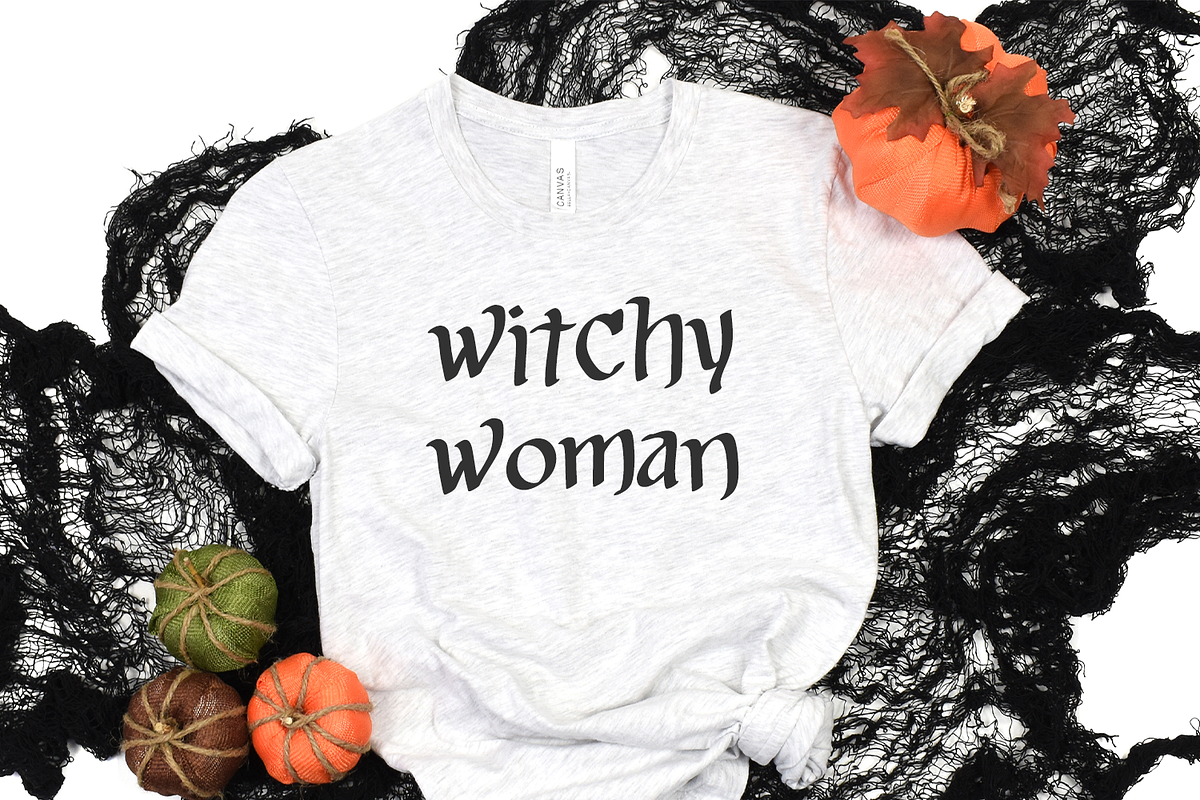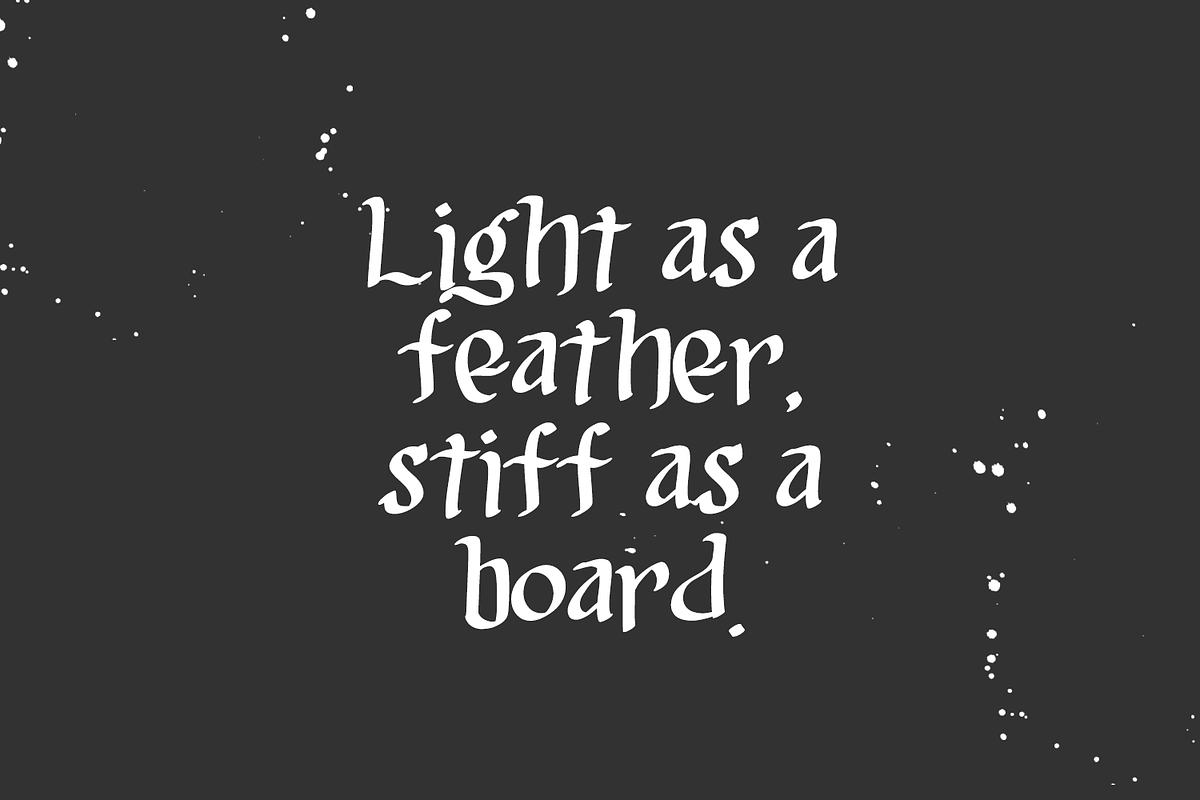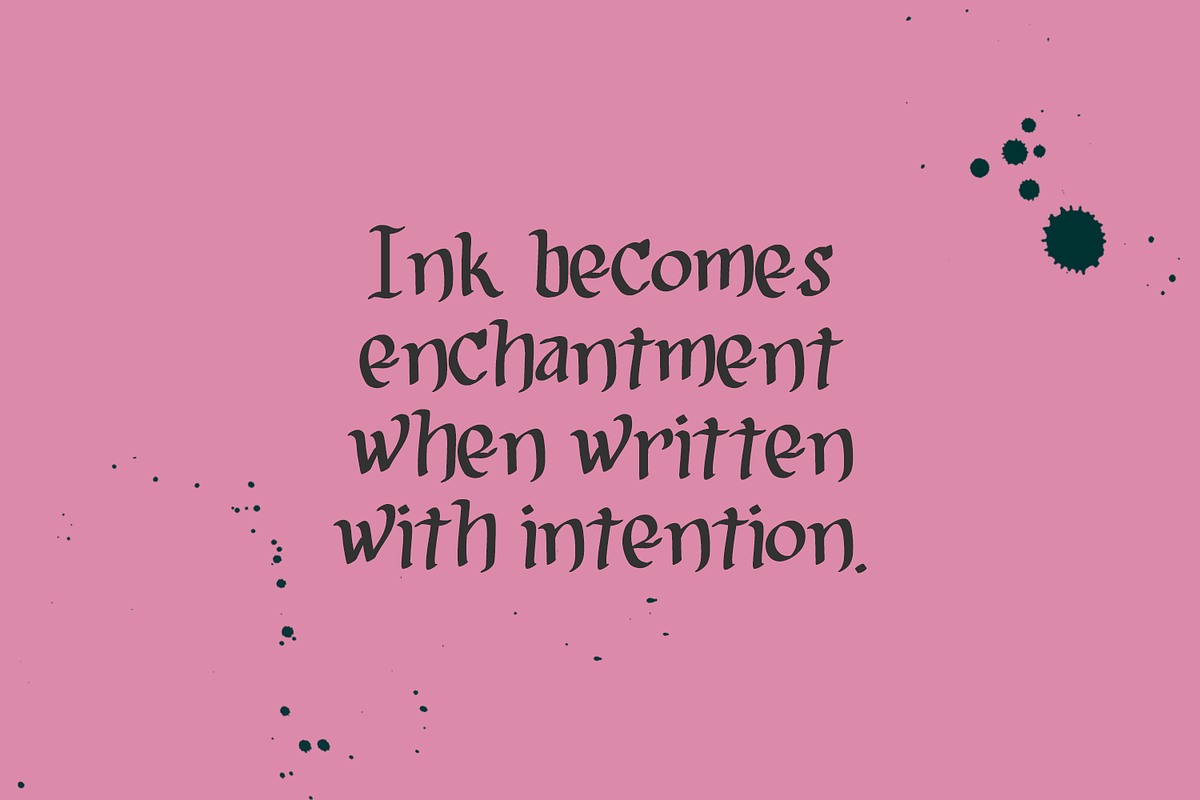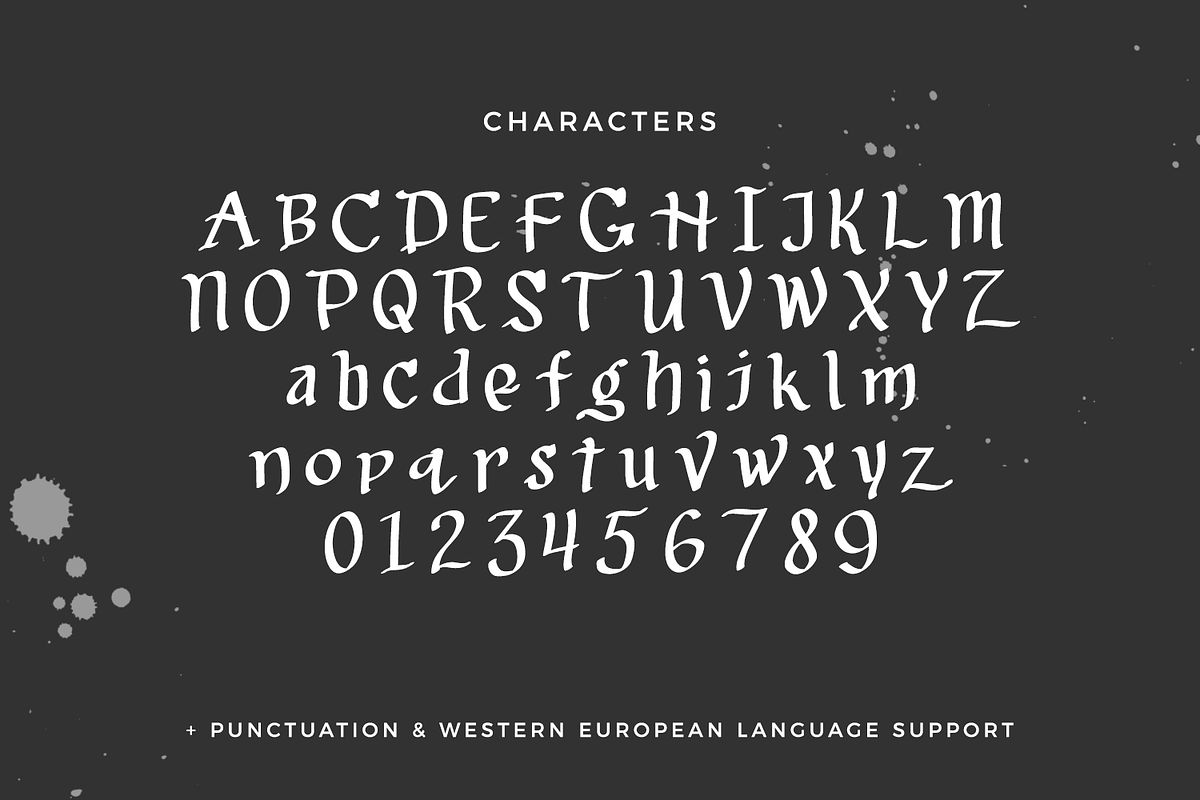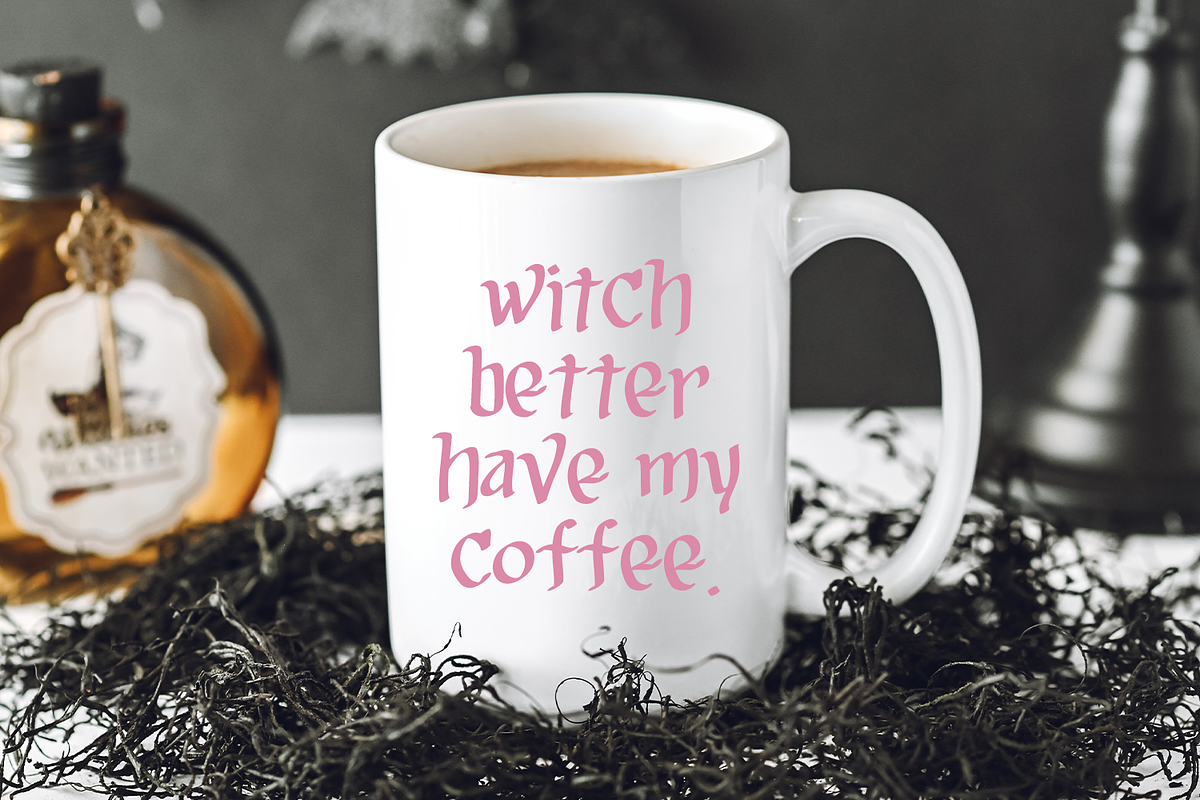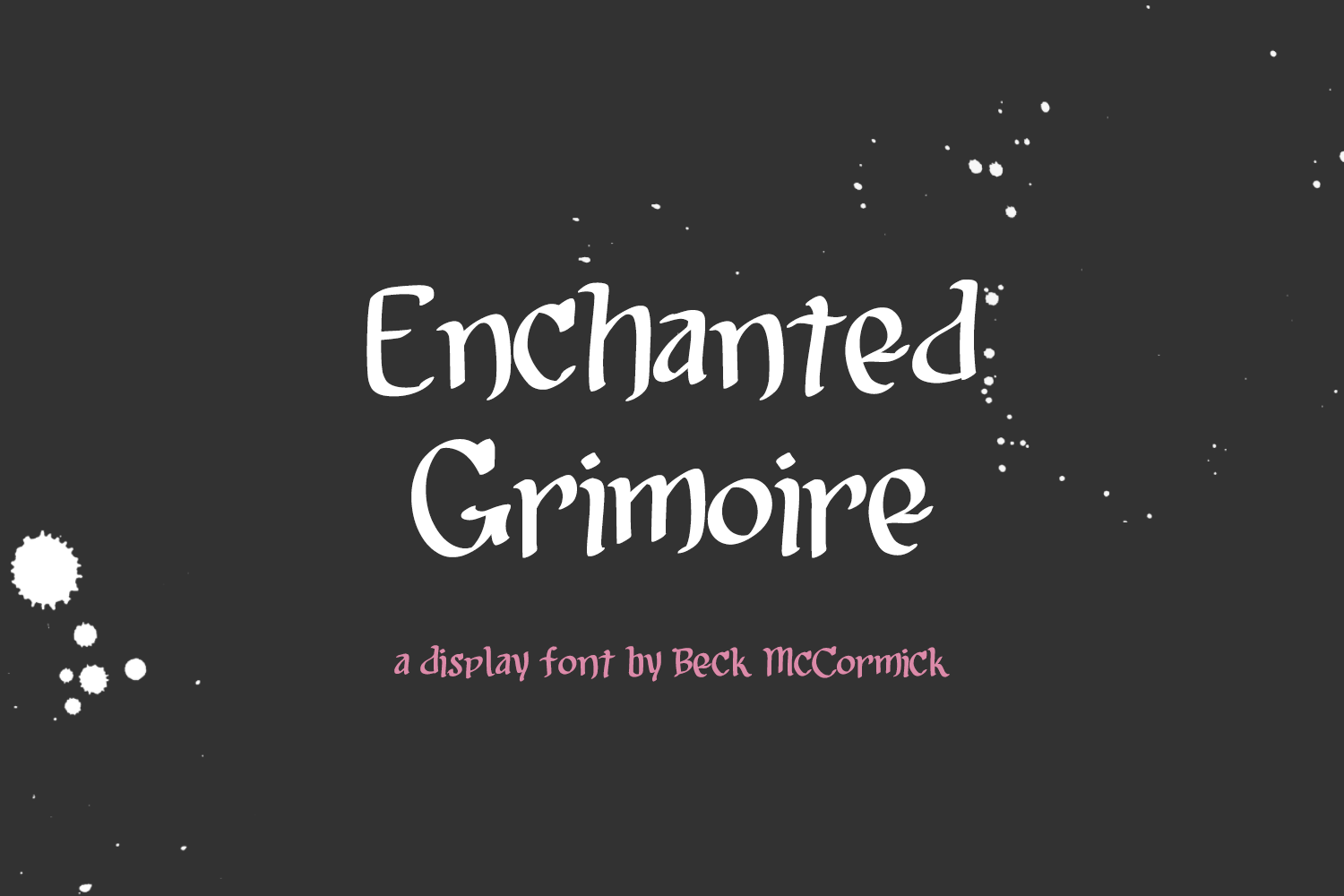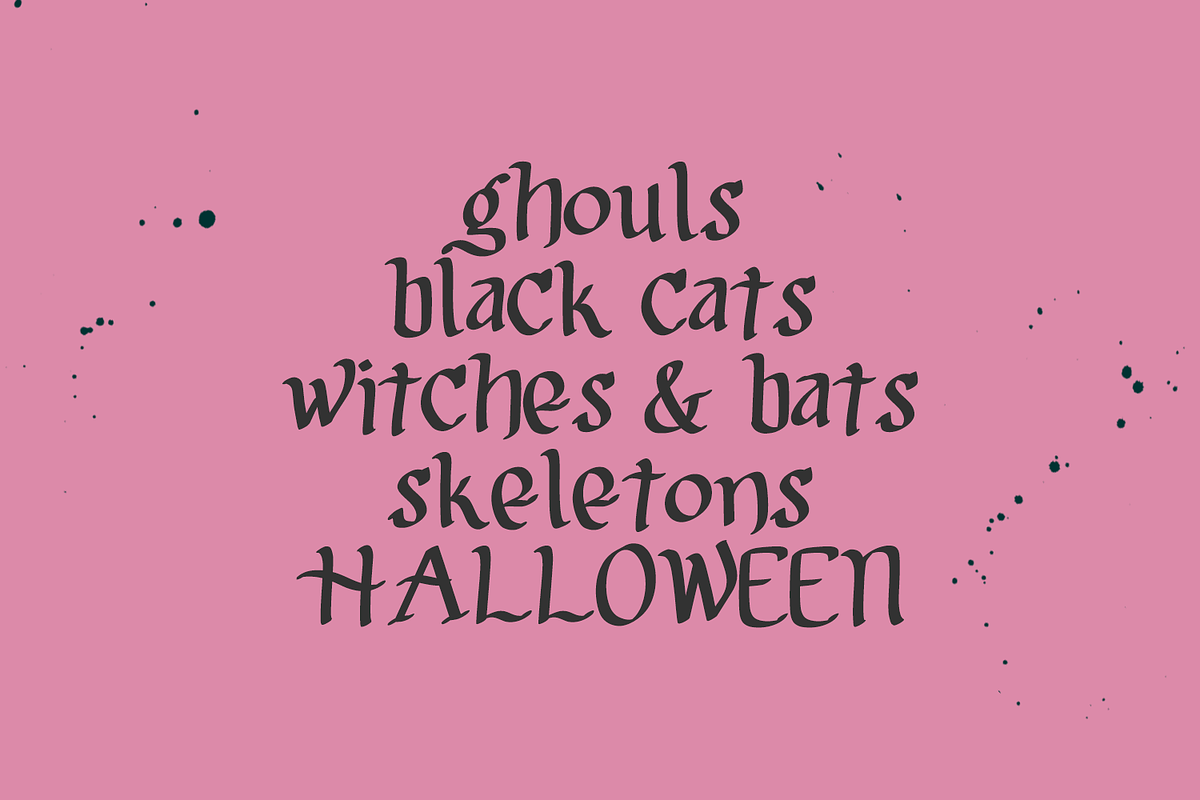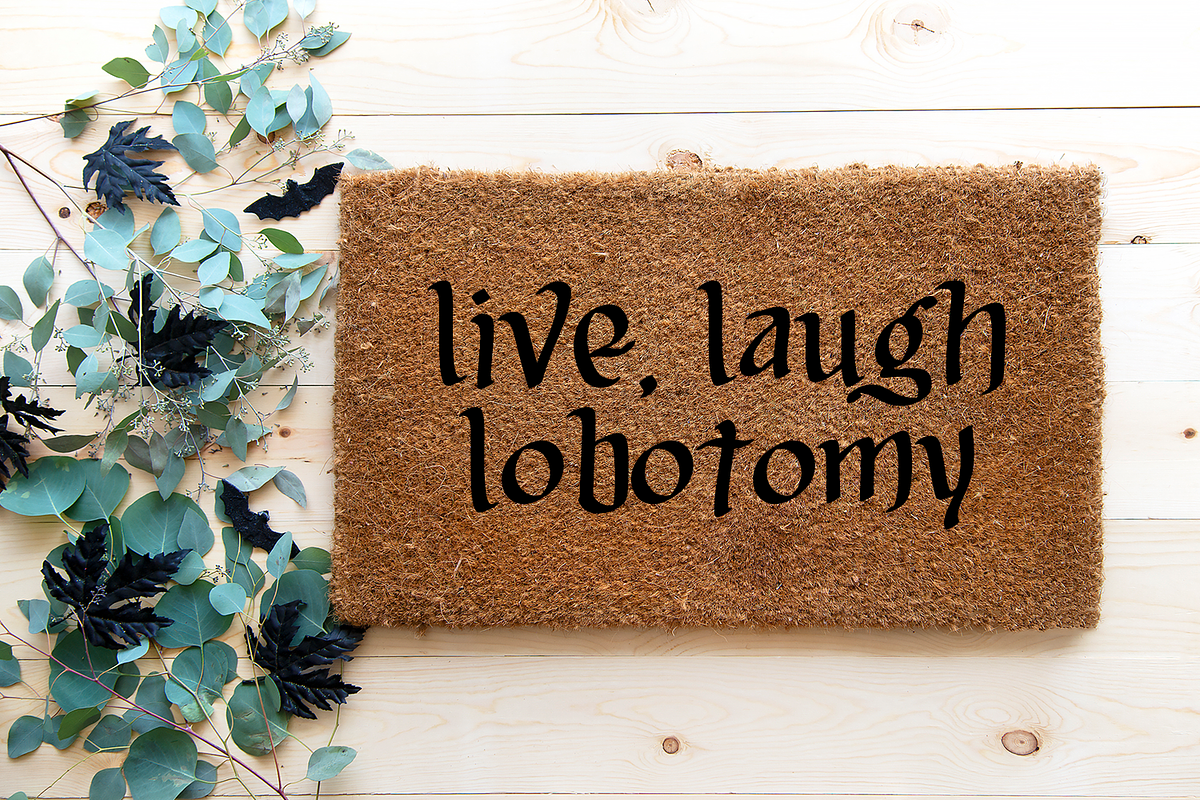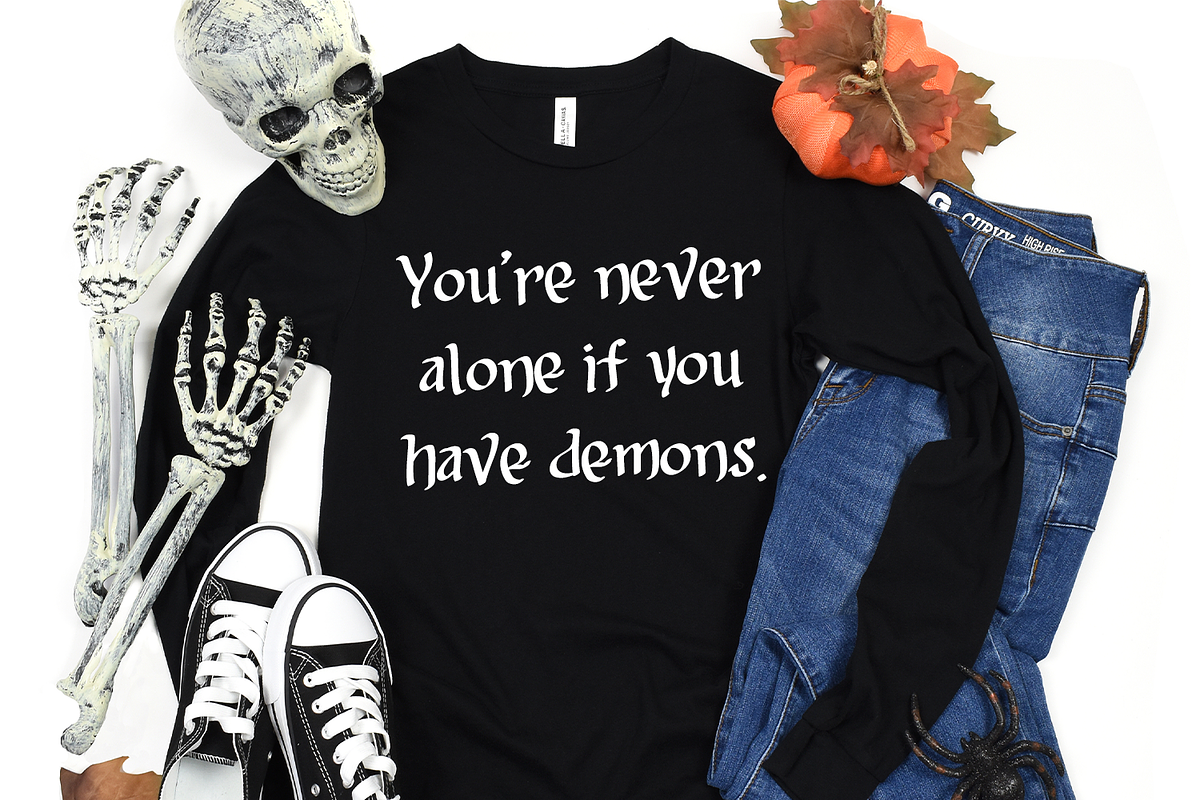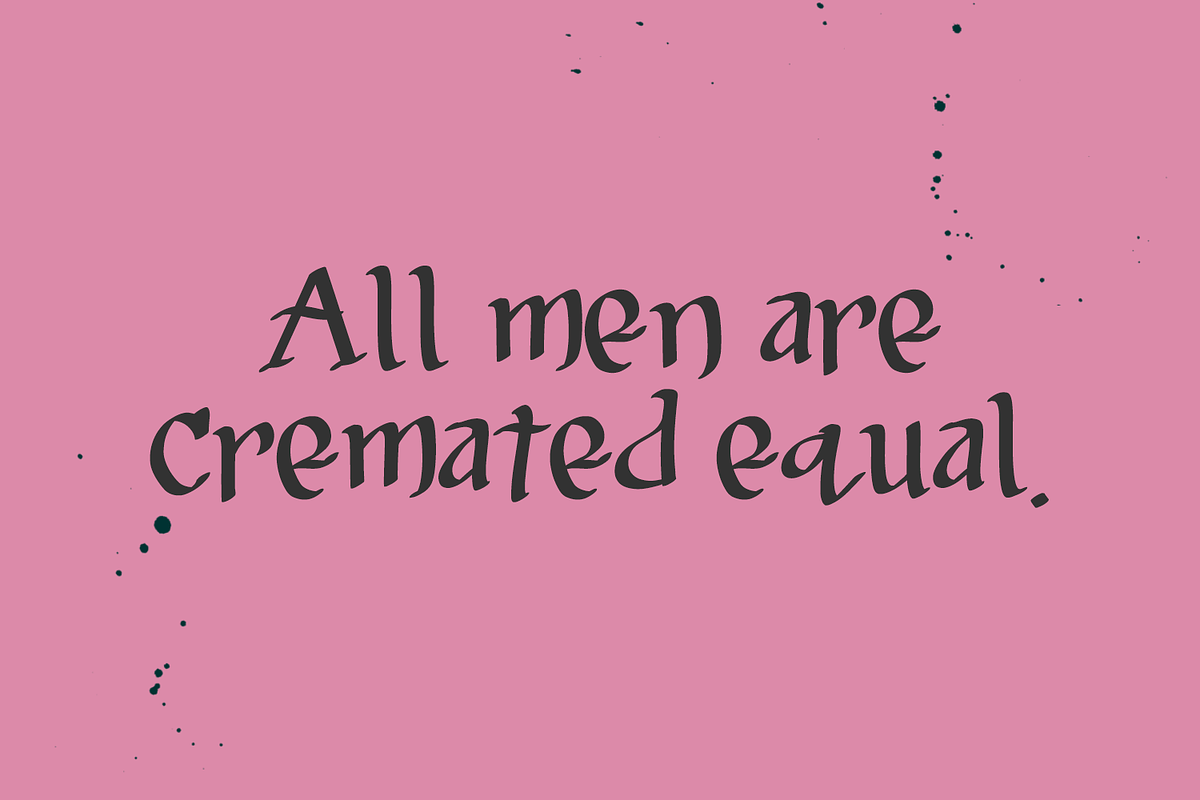
Enchanted Grimoire - A Display Font
Introducing Enchanted Grimoire, a spooky display font. Enchanted Grimoire is a fantastic fit for your scary designs. This font is well-suited for Halloween crafting projects with your Cricut or Silhouette machine, and can be used for things like shirts, signs, labels, marketing materials, social media, SVG designs, greeting cards & other print items, and even spooky logos & branding.
Enchanted Grimoire includes:
- full upper + lowercase characters
- numbers + punctuation
- PUA-encoding
- Western European language support - English, French, Spanish, Portuguese (Brazil), Portuguese (Portugal), Italian, German (Germany), German (Austria), Dutch, Danish, Swedish, Norwegian (Bokmål and Nynorsk), Finnish, Icelandic, Irish, Welsh